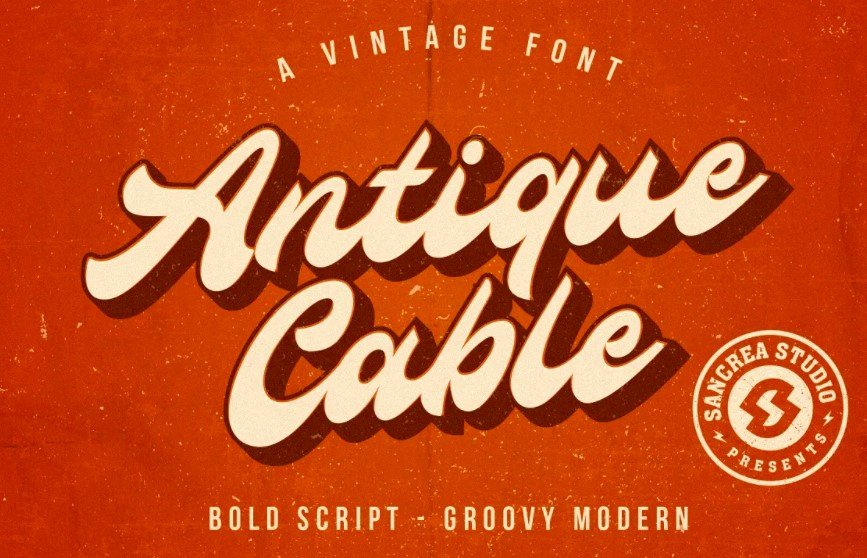
In this usage section, we shared some ideas with you in which the font works great. The project ideas are, you can use in making your company logo perfectly fine for the tagline, used in any kinds of headings, large designs, because of its heavy strokes it can be used for all types of large projects easily.
Style Script
What Type of Font Is Antique Cable Bold Script?
The Antique Cable Bold Script Font is the famous and amazing typeface which was product of the combination effort of creativefabrica.